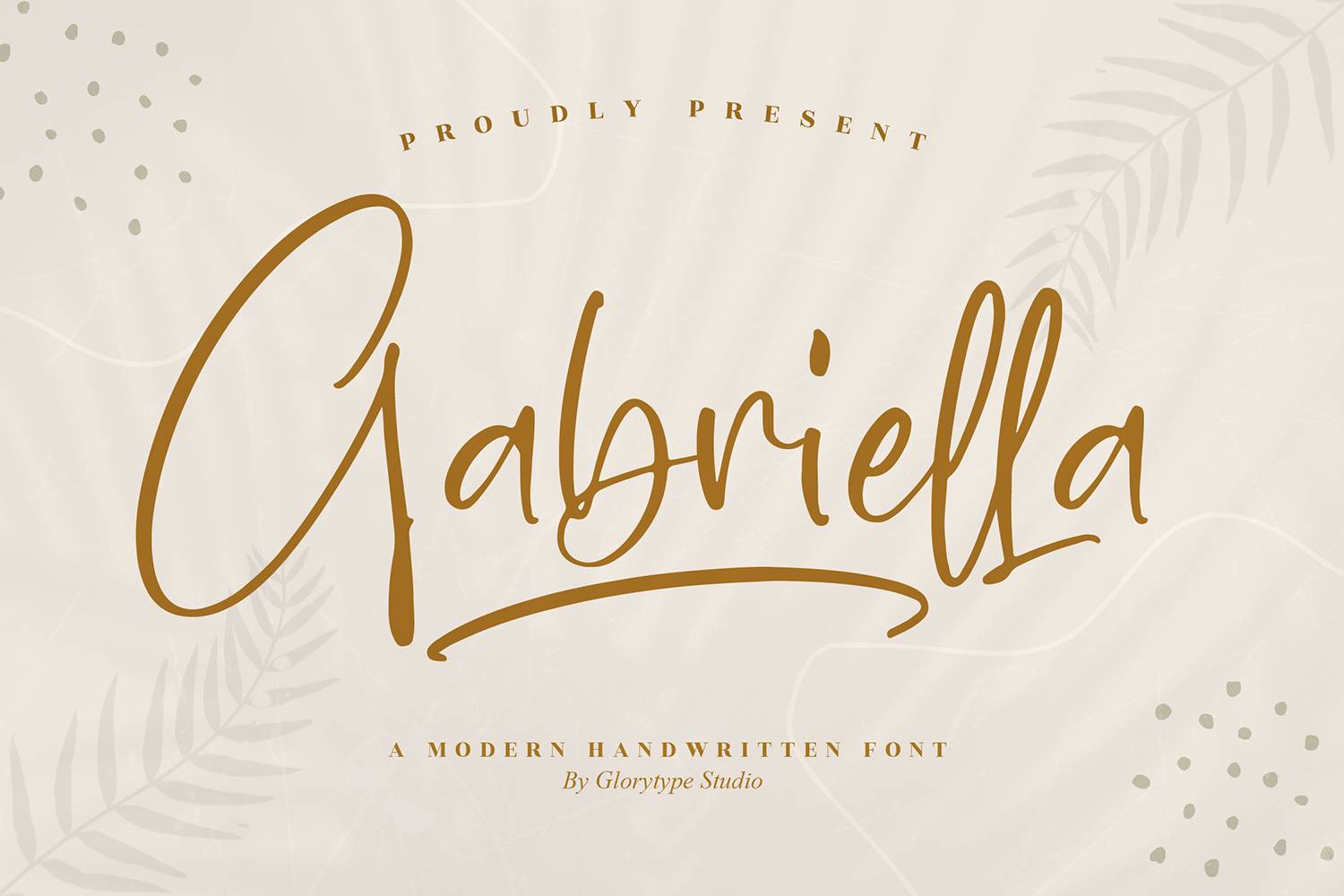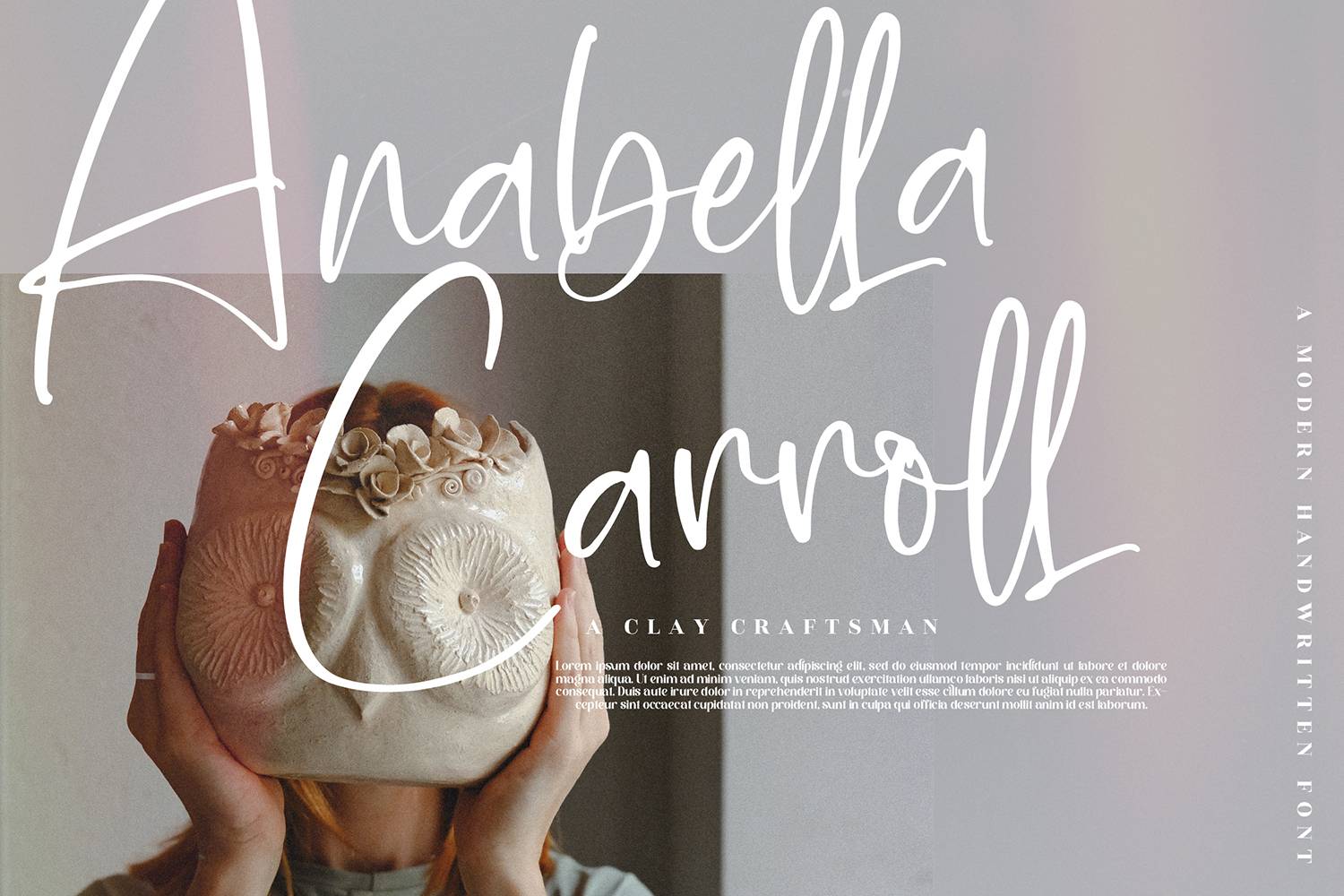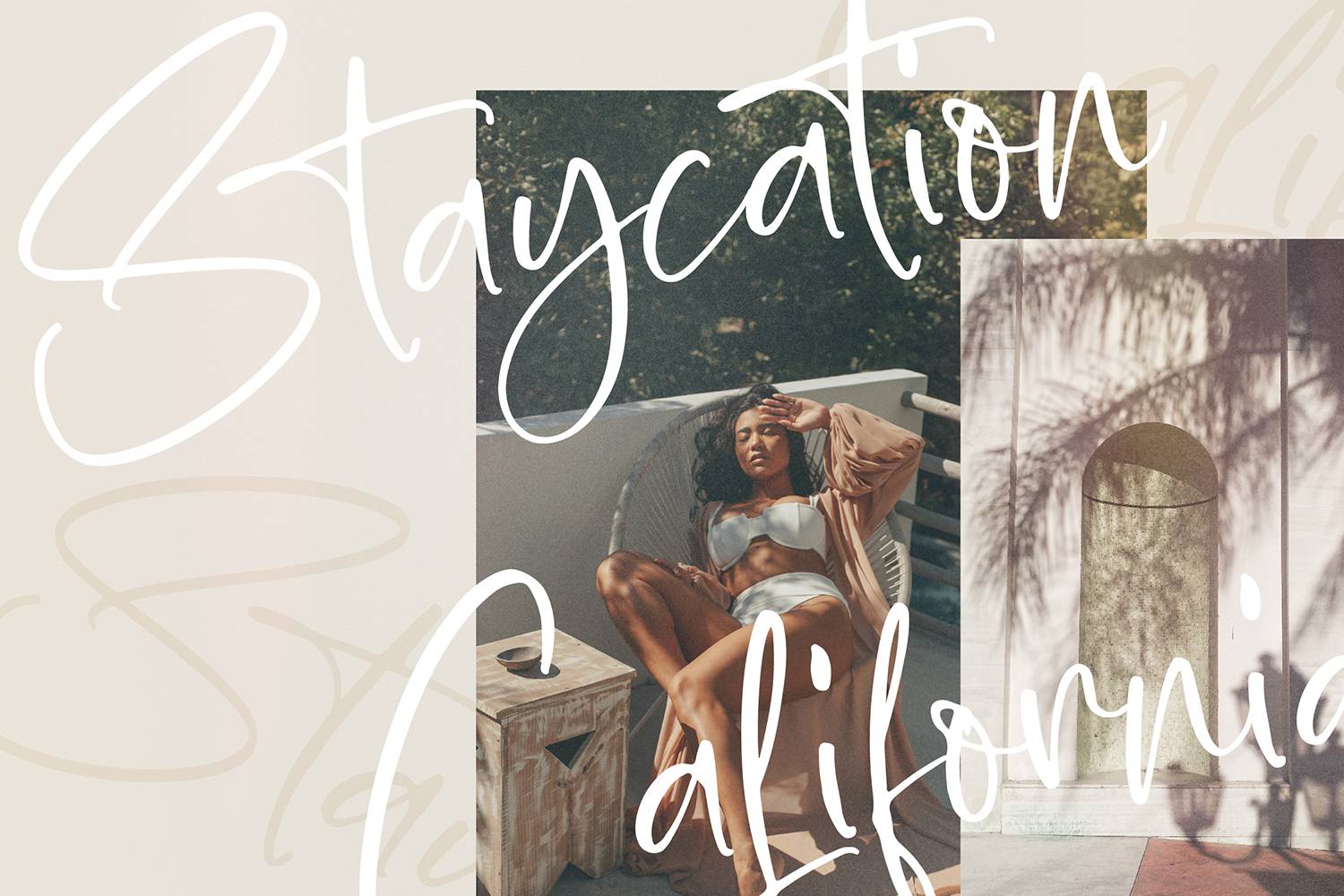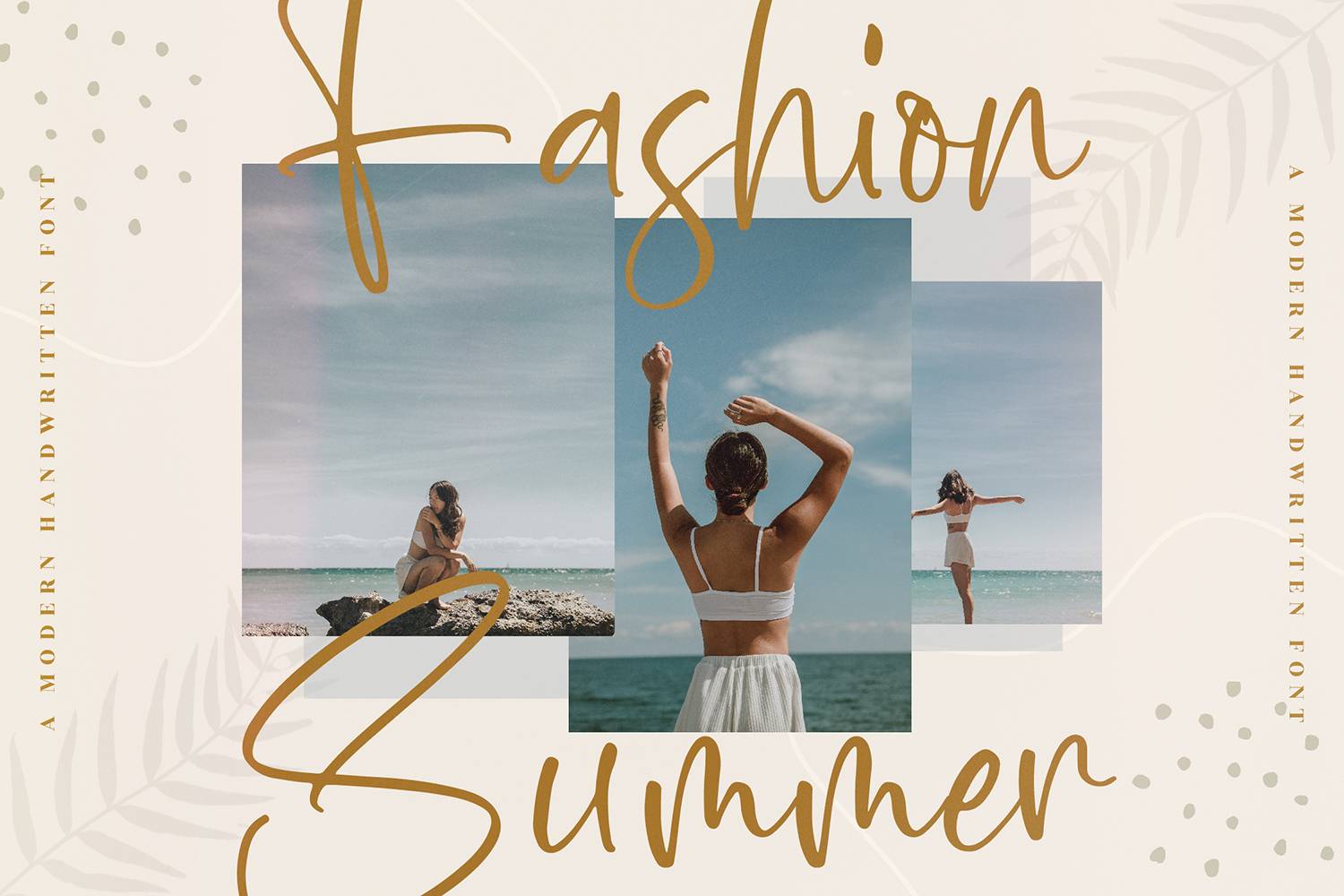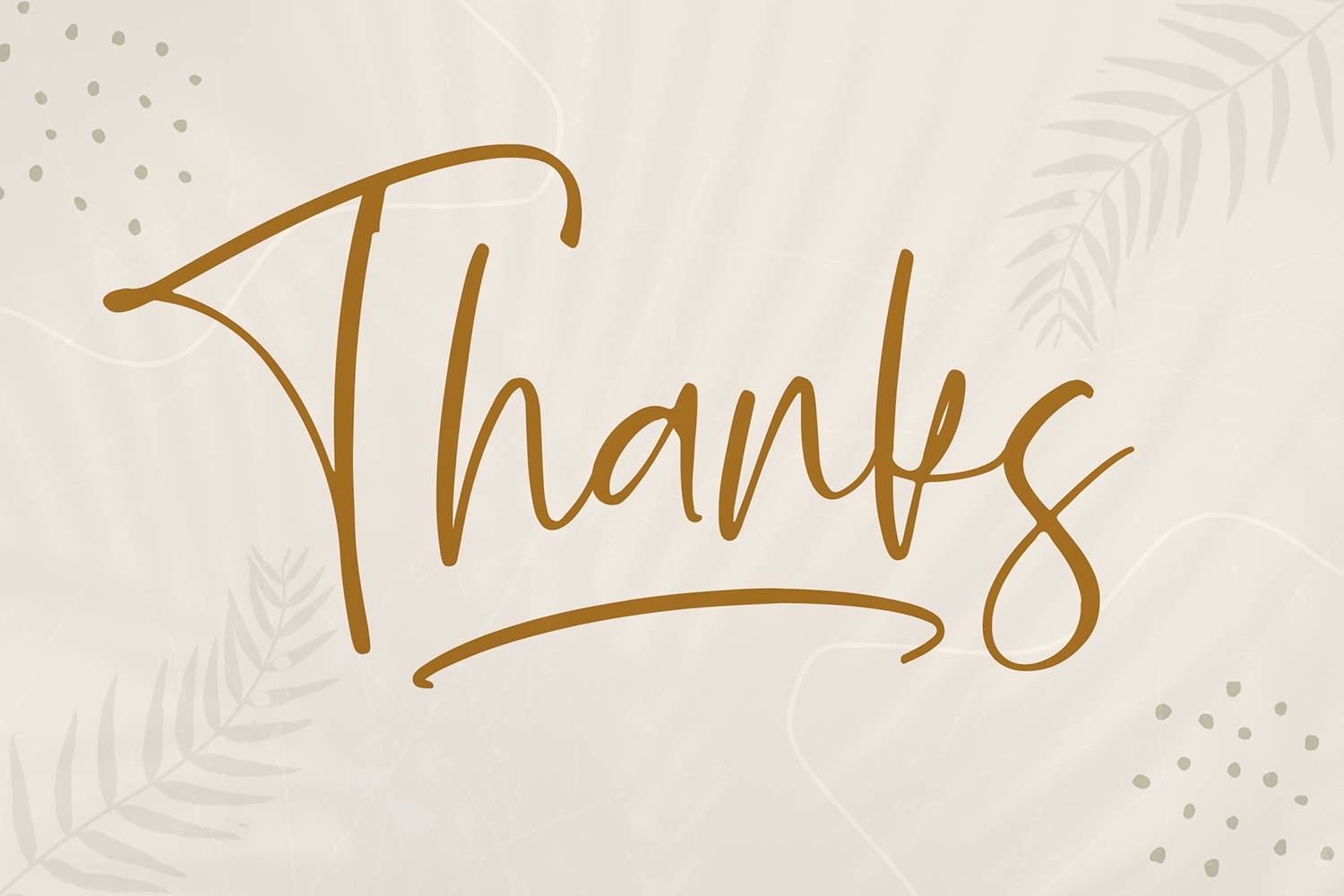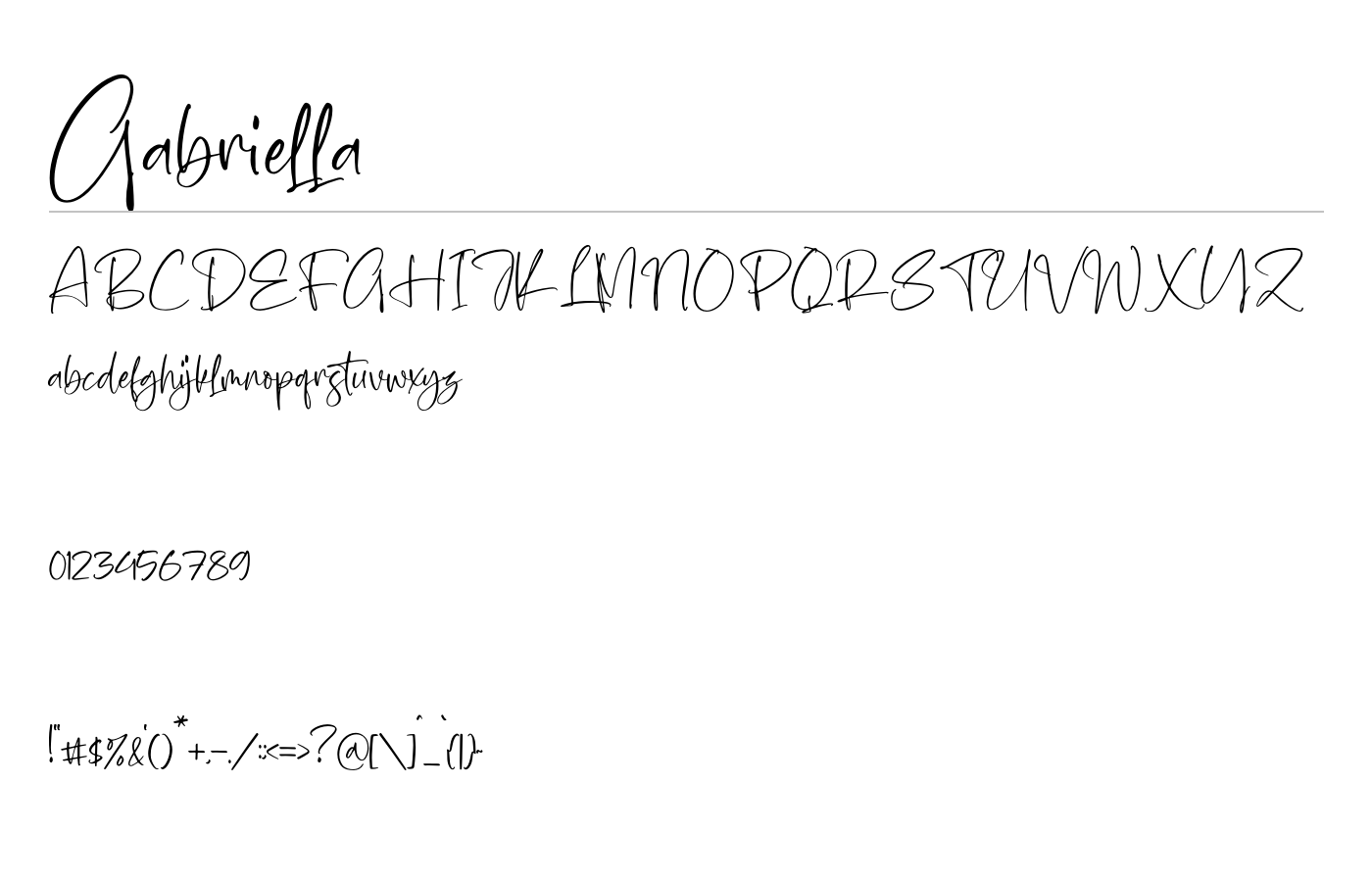
Gabriella is a delicate handwritten script font with a light, airy feel and whimsical, irregular letterforms that give it a personal, charming character. Its thin strokes and playful flow make it well-suited for creative projects, branding, invitations, and any design seeking an elegant yet approachable handwritten touch. This font shines in uses where a casual yet artistic impression is desired, adding a unique, handcrafted flair.
Gabriella Font
About Gabriella Font
| Font family | Gabriella Font |